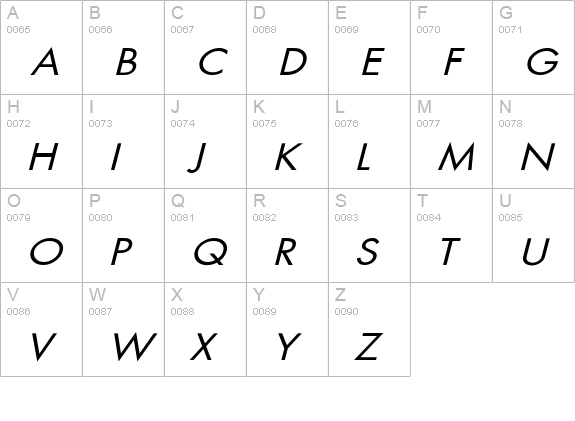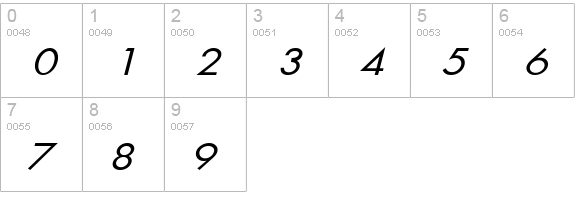
BelmarExtObl-No font is a sleek and modern typeface that exudes elegance and sophistication. Its extended oblique design adds a unique touch to any project, making it stand out from the crowd. The clean lines and sharp angles of this font make it perfect for both headers and body text, ensuring readability while maintaining a stylish appearance. What makes BelmarExtObl-No font even more appealing is the fact that it is available for free download at FontsMarket.com. This means that you can easily access this beautiful font without any cost, making it a valuable addition to your design toolkit. Whether you are working on a professional project or a personal creative endeavor, BelmarExtObl-No font is sure to elevate your work and leave a lasting impression on your audience.